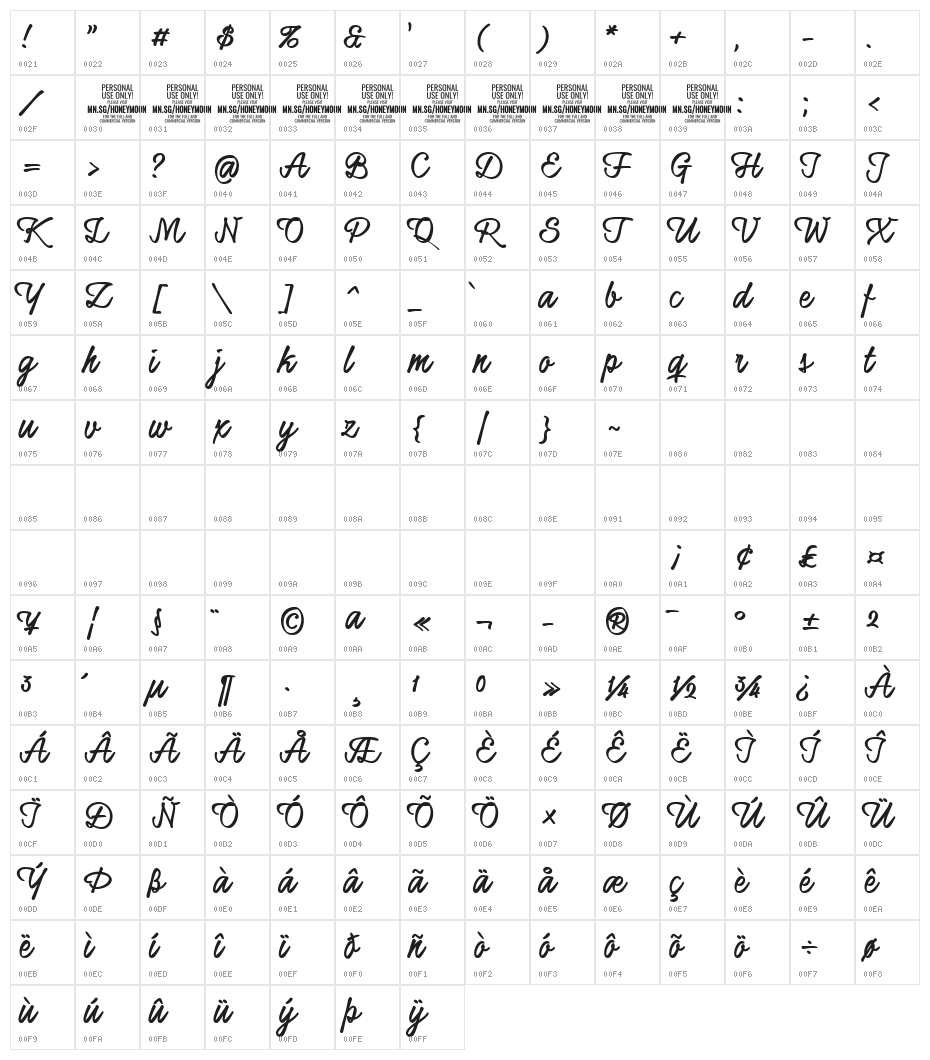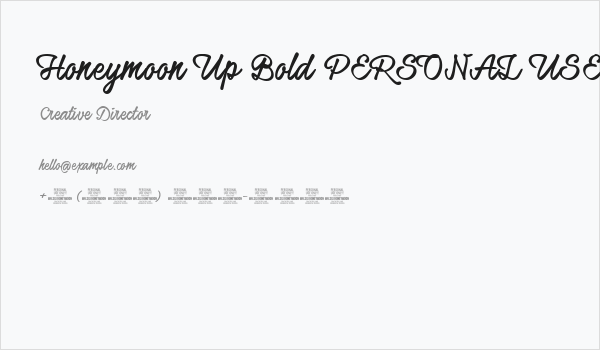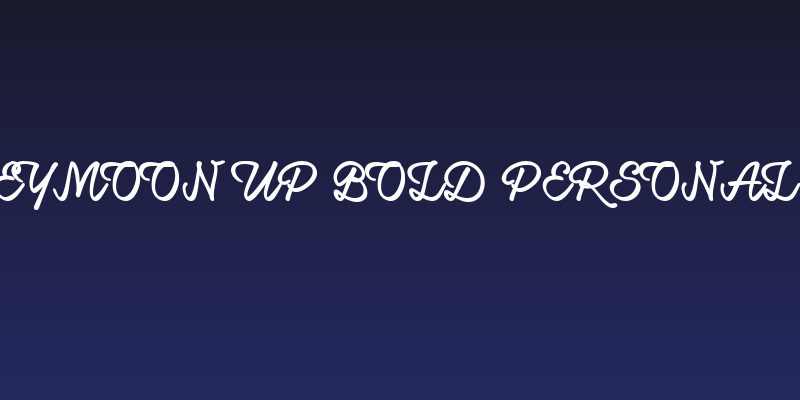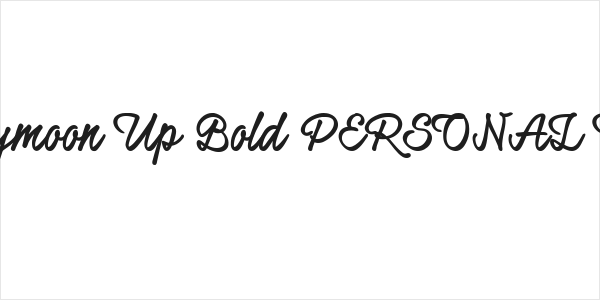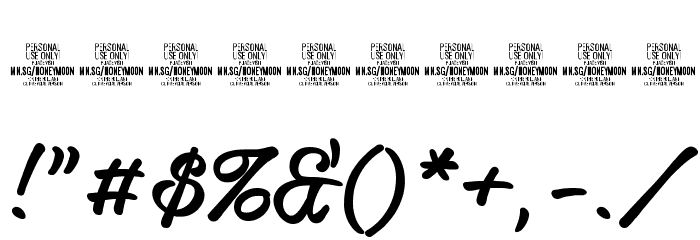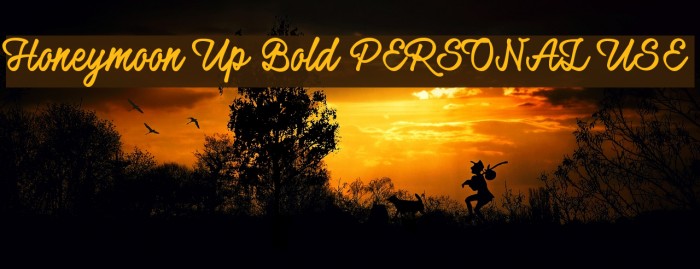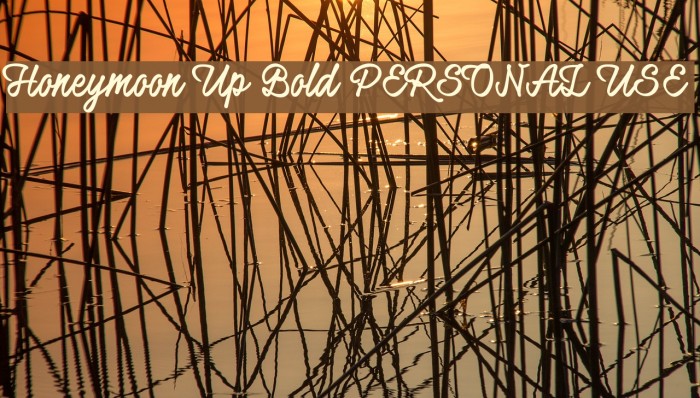
Honeymoon Up Bold PERSONAL USE Font
Honeymoon Up Bold PERSONAL USE Description
This font features a flowing, cursive style with a bold presence. The characters are interconnected, creating a seamless and elegant appearance. The uppercase letters maintain a consistent height, while the lowercase letters exhibit a slight slant, enhancing the script-like quality. The strokes are thick and uniform, providing a strong visual impact. The font includes a full set of uppercase and lowercase letters, numbers, and a variety of special characters, making it versatile for different design needs.
| Overall Style | Elegant |
| Use Case | Logos, Invitations, Greeting Cards |
| Proposed Projects | Ideal for wedding invitations, greeting cards, branding, and logo design where a personal and elegant touch is desired. |